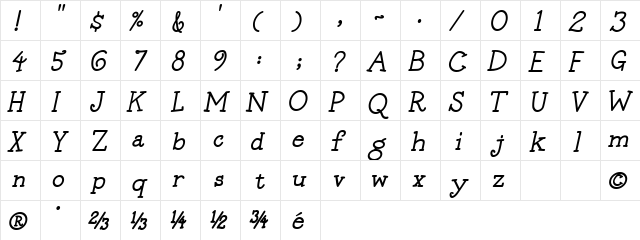
MummBasic SemiBoldItalic Font Preview
Design Context for MummBasic Typeface
MummBasic takes a measured approach to typography — its balanced proportions and neutral character make it a reliable workhorse for both digital and print work. Its italic angle brings a sense of urgency and motion to the letterforms. The heavy weight commands attention and anchors typographic hierarchies.
Pro Tip: Try MummBasic for annotation and caption copy alongside an upright companion — the contrast in angle creates a dynamic but ordered typographic system.